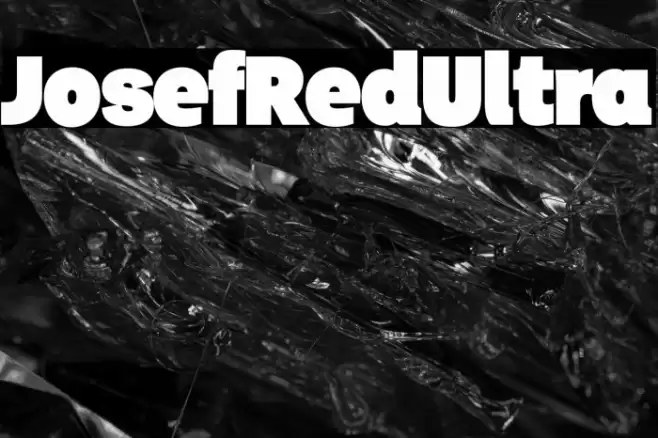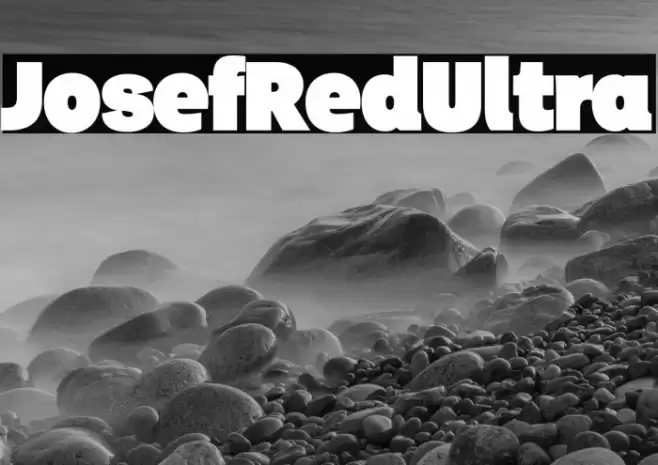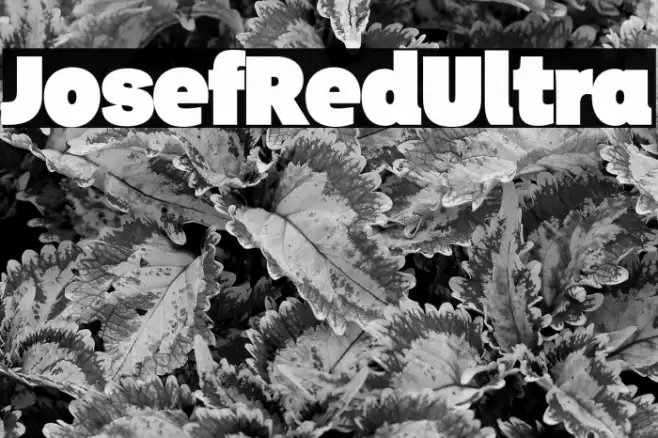
JosefRed-Ultra Font
JosefRed-Ultra Description
This font features a bold and impactful design, characterized by thick, uniform strokes and a strong presence. The uppercase and lowercase letters are designed with a consistent weight, creating a cohesive and powerful look. The characters are tightly spaced, enhancing the boldness and making it ideal for attention-grabbing headlines. The font's geometric shapes and clean lines give it a modern and assertive appearance, suitable for various design projects that require a strong visual impact.
A bold, modern font with thick strokes and tight spacing, perfect for impactful headlines from Uncategorized fonts.
- Proposed Projects: Ideal for branding, advertising, poster design, and any project needing a strong visual statement.
- Character Spacing: Tight